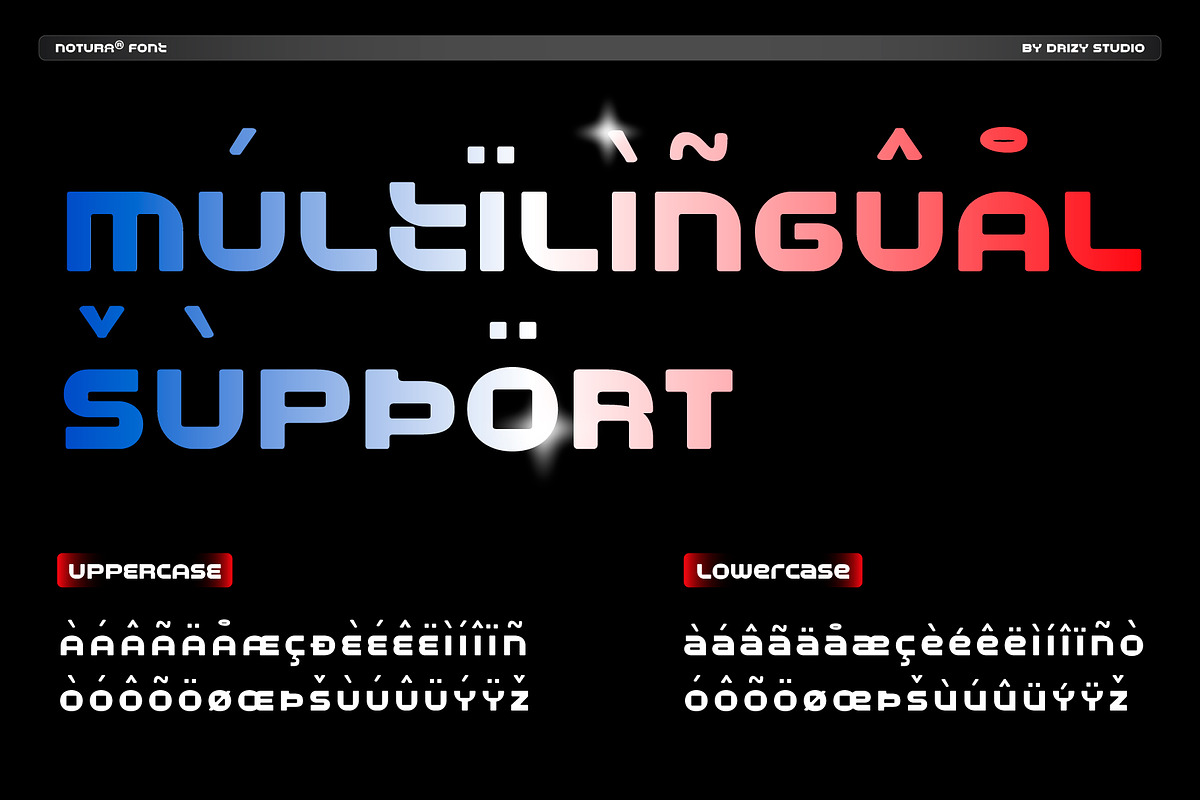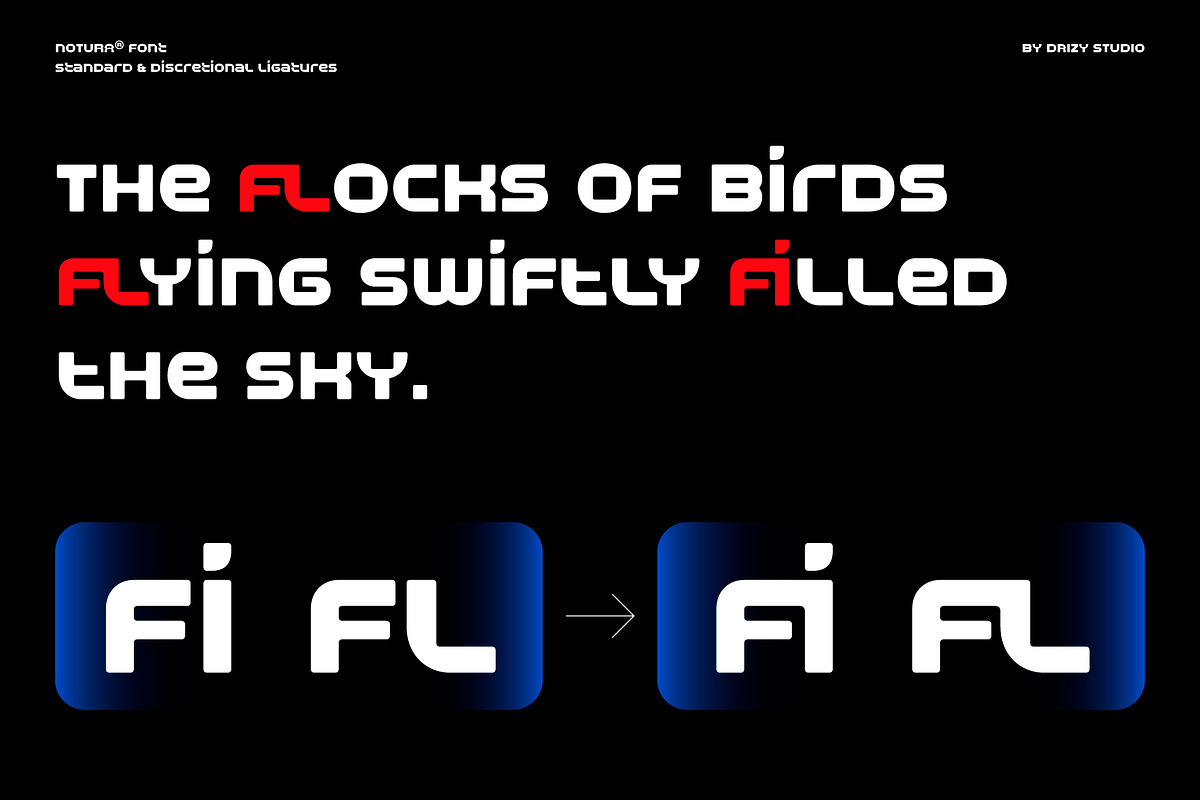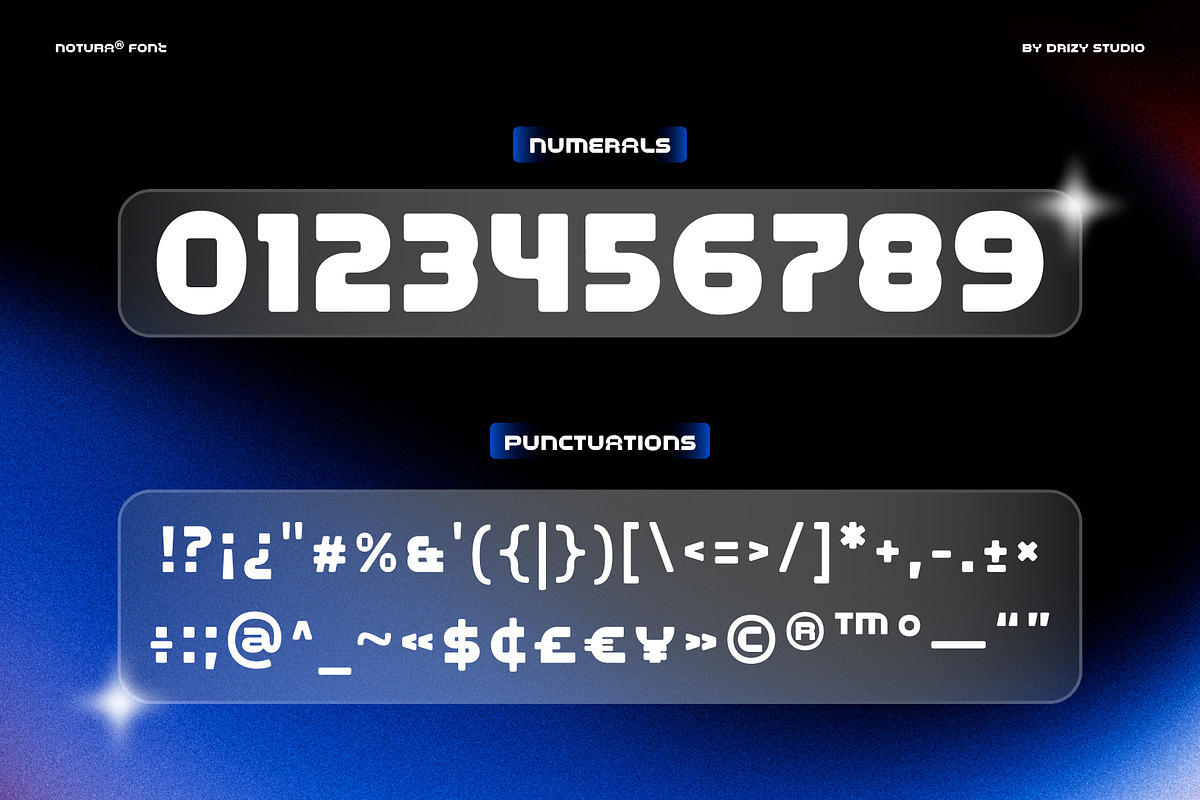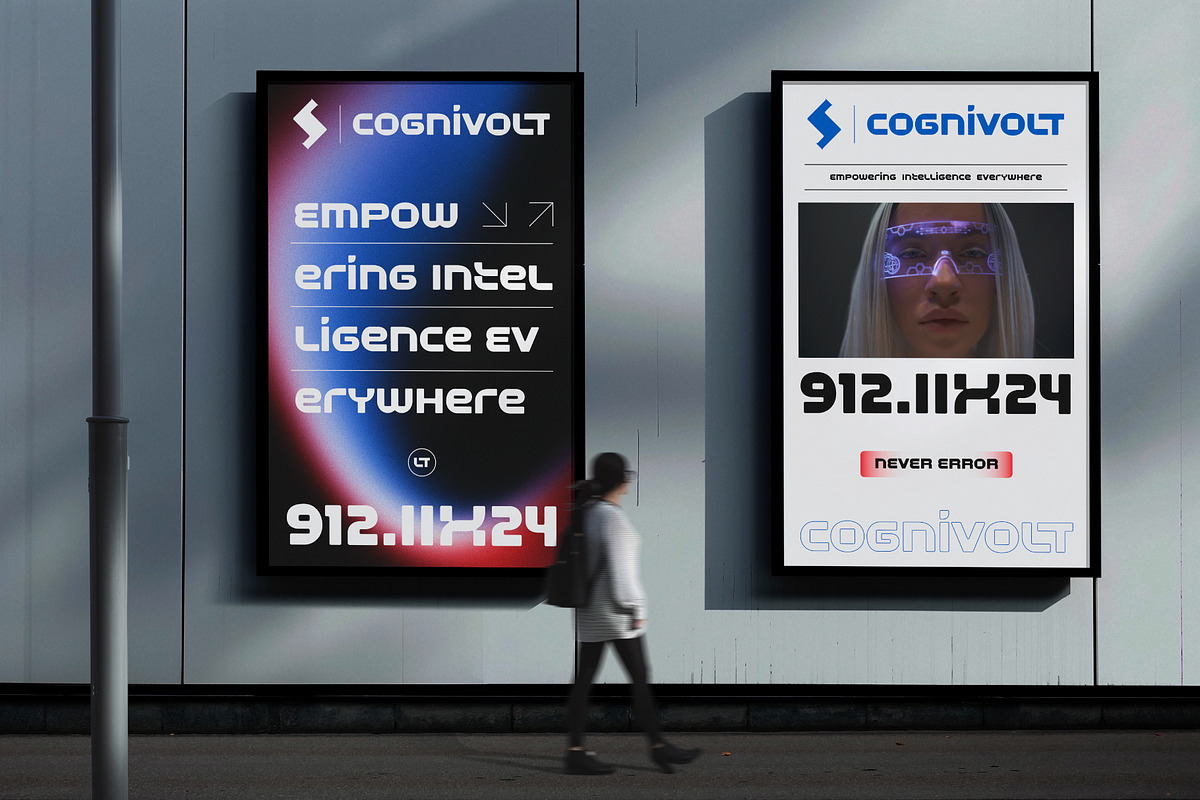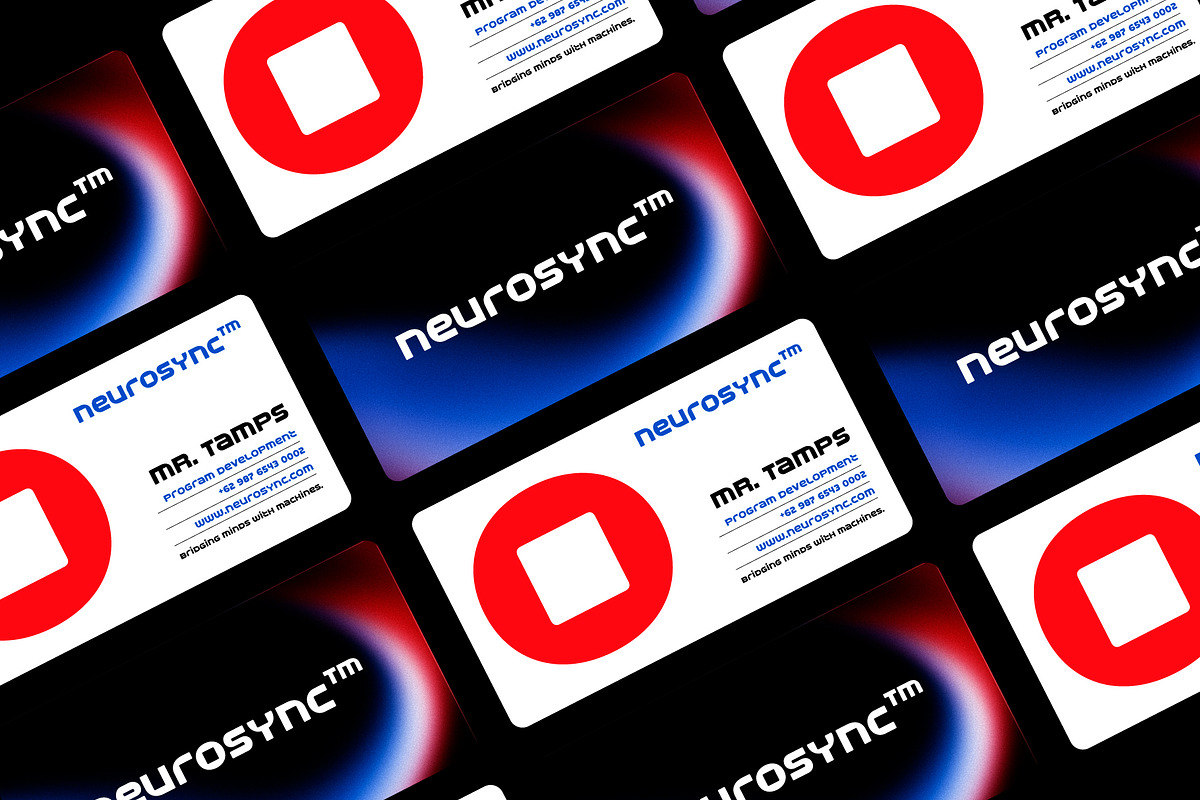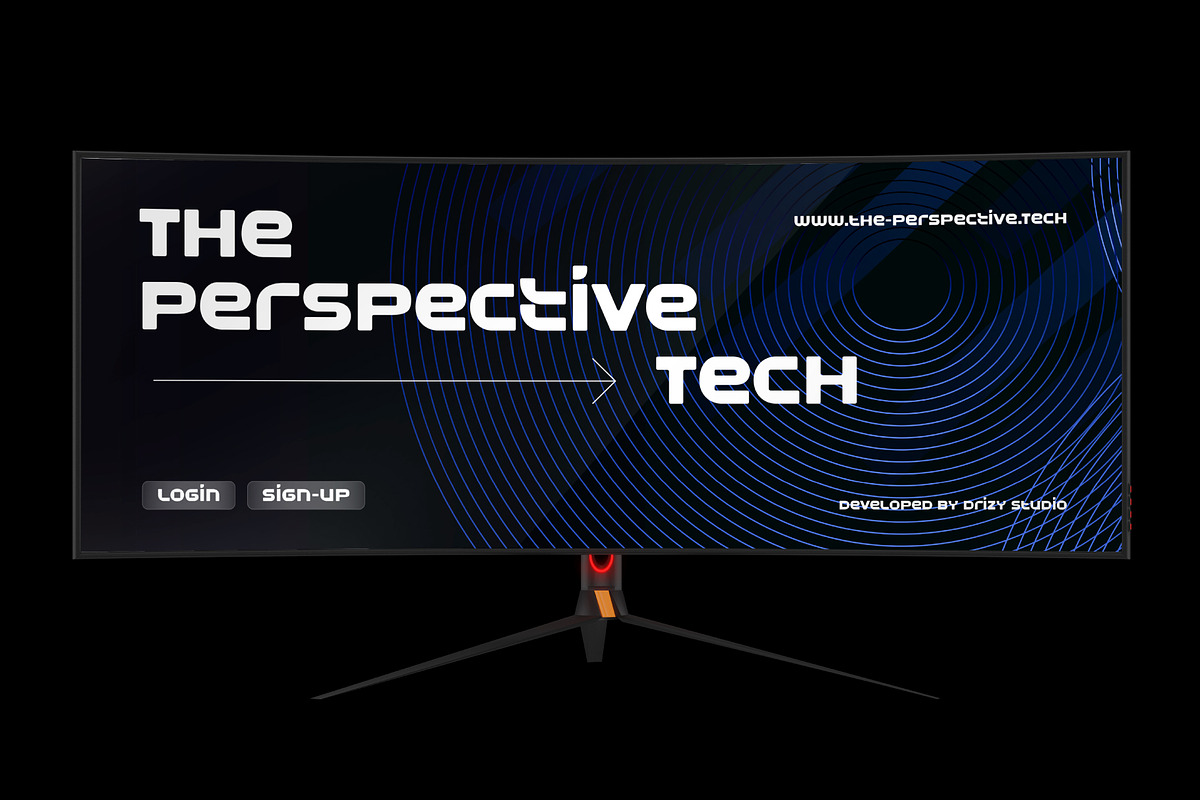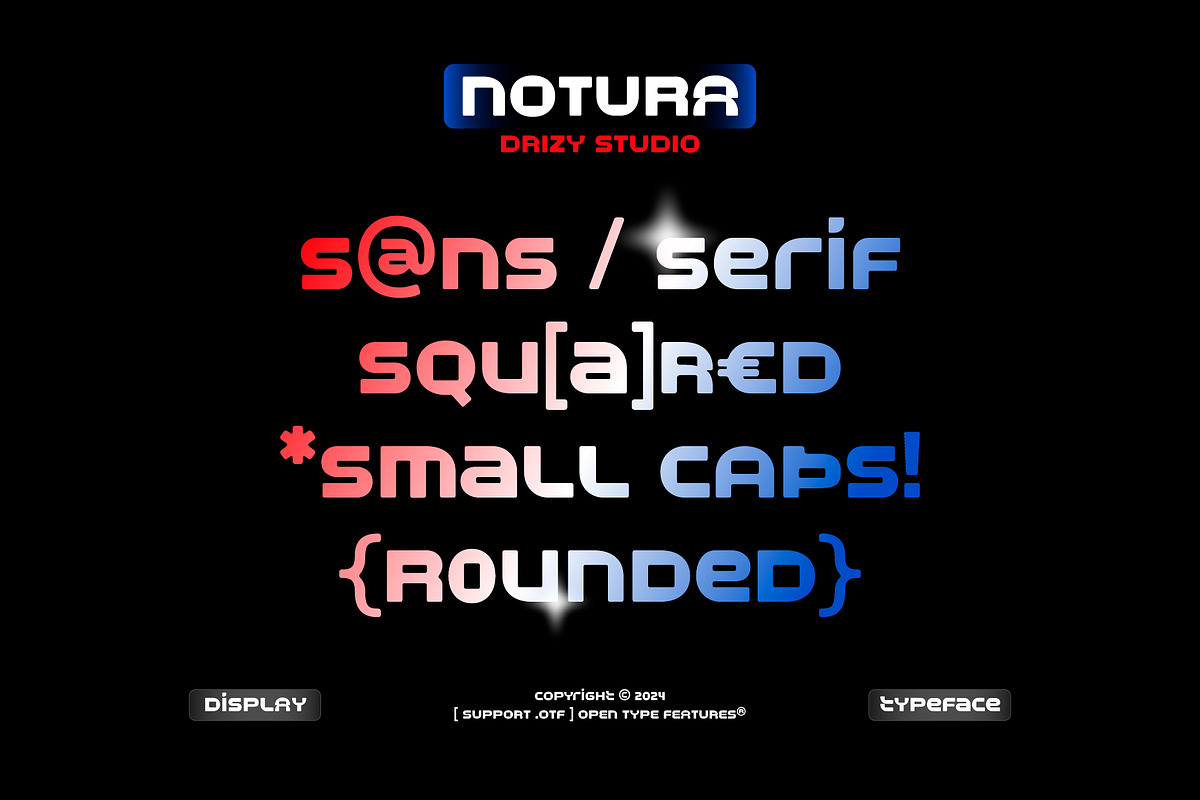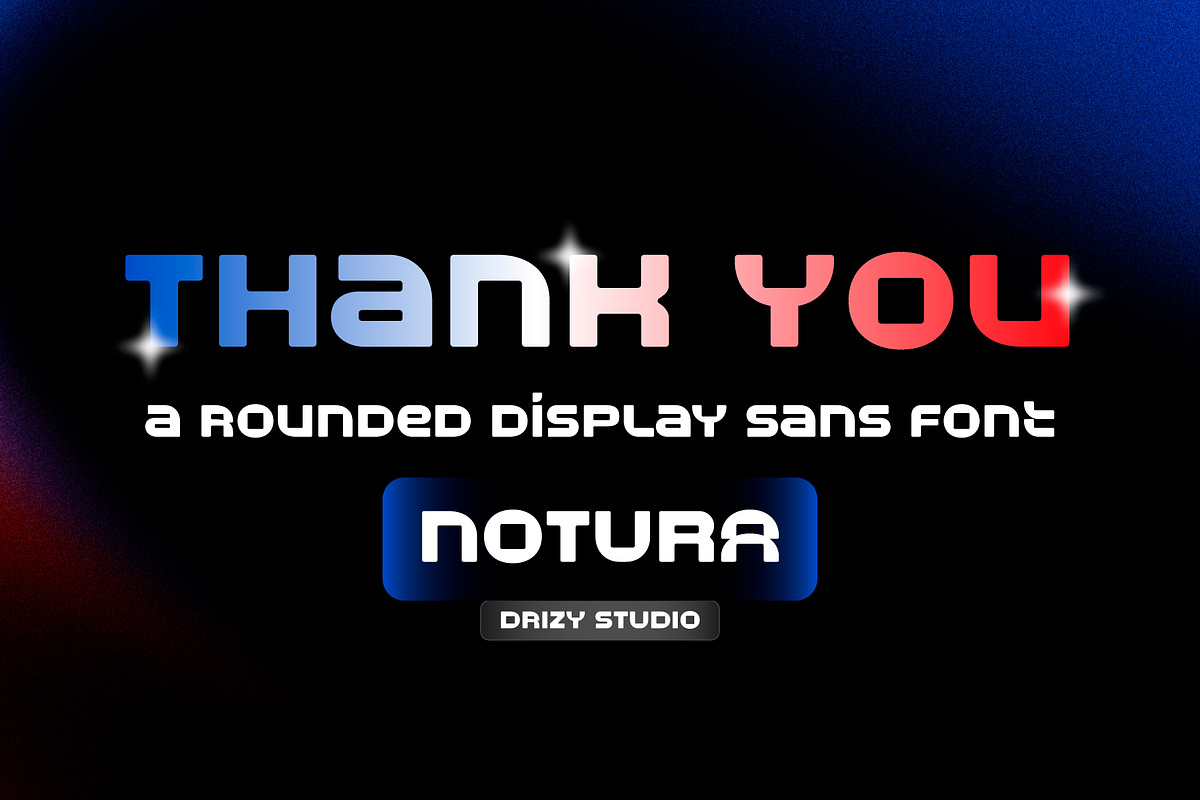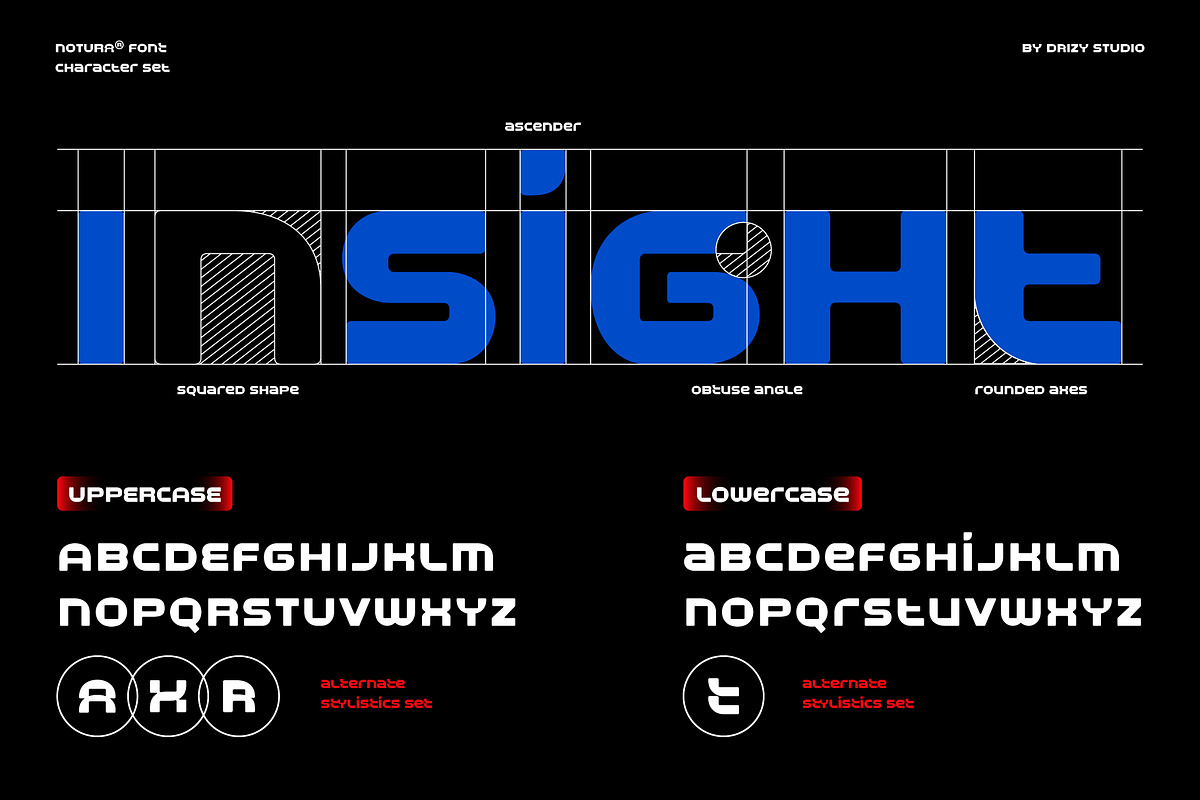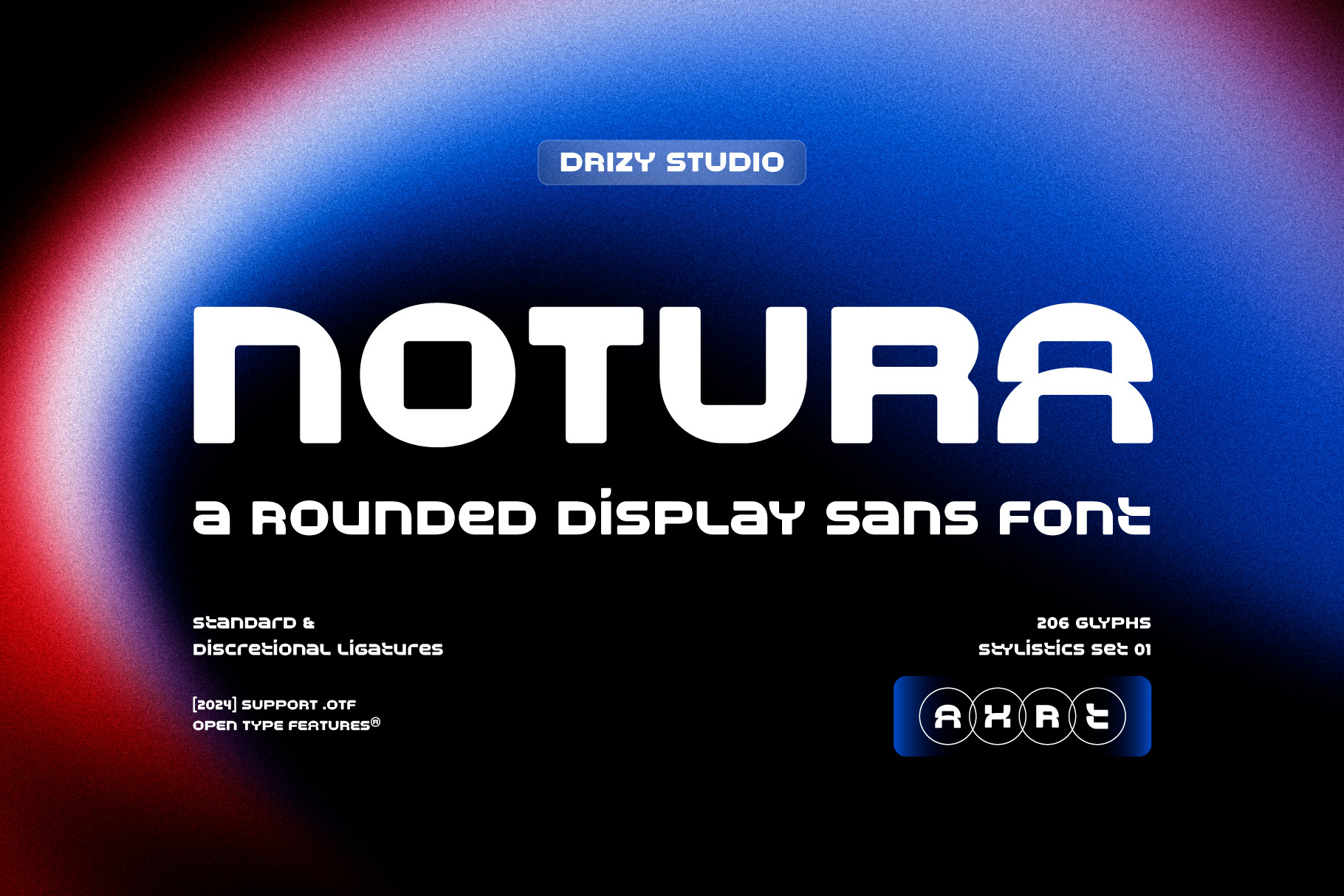
Notura – Rounded Display Sans Font
Notura is a sleek and versatile font designed to elevate your visual identity with a modern touch. With its rounded edges and Clean Modern, Notura combines contemporary aesthetics with readability, making it ideal for UI/UX design and branding projects. Whether you’re crafting a minimalist website, a cutting-edge app interface, or a professional logo, Notura ensures a polished and approachable look. Perfect for designers seeking a balance between functionality and style, this font is your go-to choice for a seamless, modern design experience.
Notura features:
- Character Set (Uppercase & Lowercase)
- Punctuation & Numbers
- Standard & Discretional Ligatures
- Stylistics Set 01
Elevate and explore the design possibilities with this Clean Modern Font!